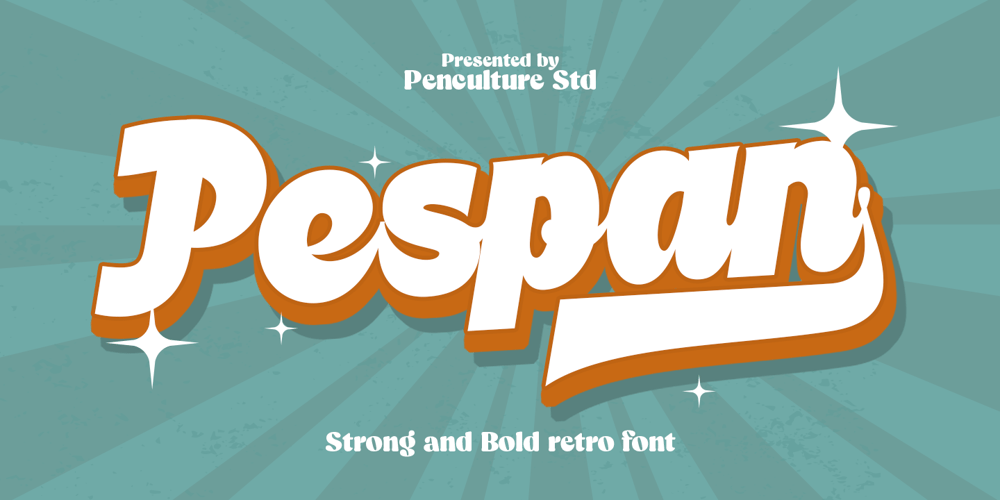
Pespan Font Family was designed by Revo Farsiky and published by Pen Culture. Pespan contains 1 styles and family package options. Pespan is a bold script font that exudes energy and style. Featuring striking ligatures and exceptional stylistic alternates, Pespan gives you the flexibility to create unique, customized designs with ease.Perfect for logos, branding, packaging, posters, and more, this font blends boldness with elegance, making it ideal for projects that demand attention and character. No matter the design aesthetic, Pespan adds a creative touch to every project.I really hope you enjoy it – please do let me know what you think, comments & likes are always hugely welcomed and appreciated. More importantly, please don’t hesitate to drop me a message if you have any issues or queries.Thank you